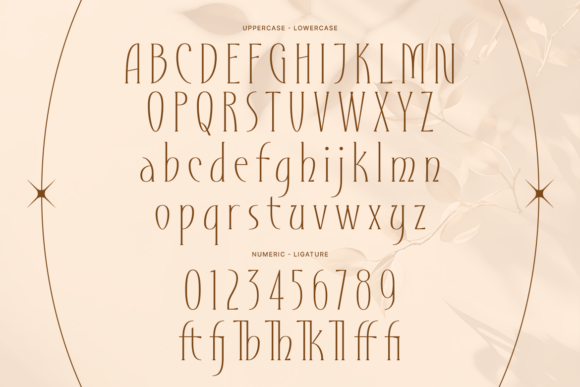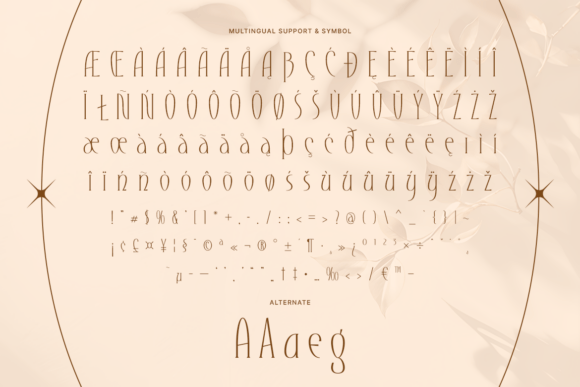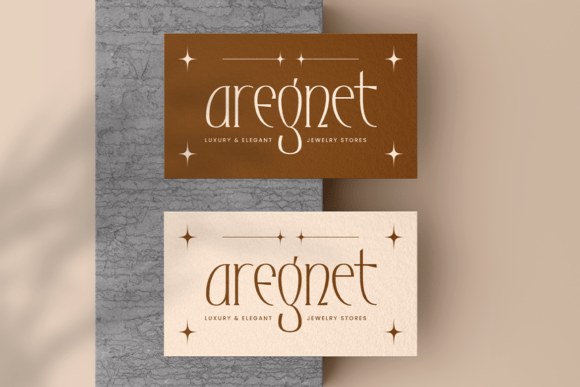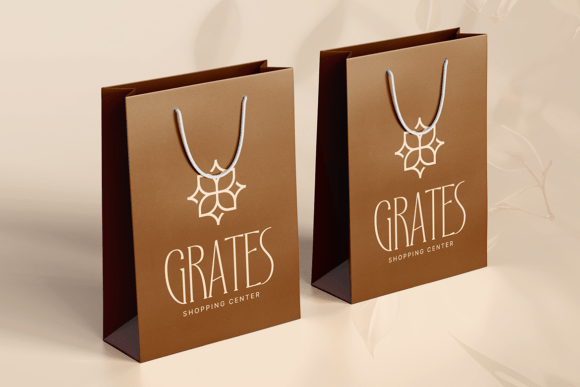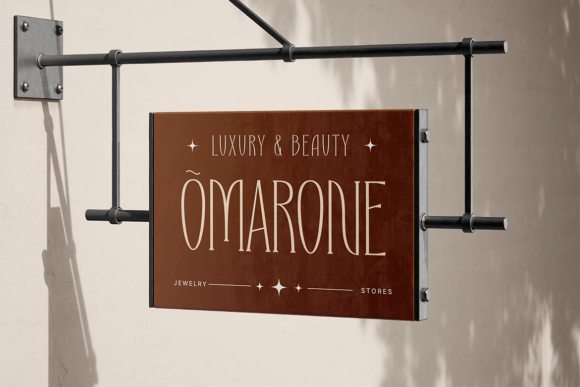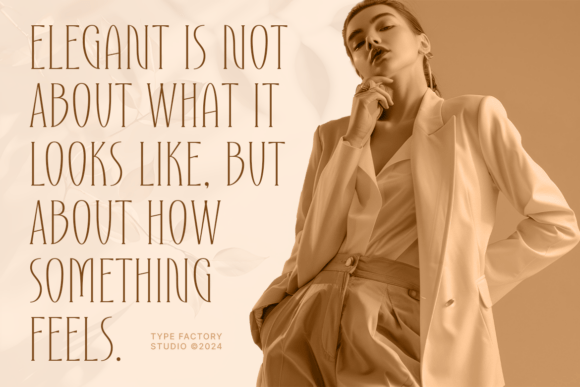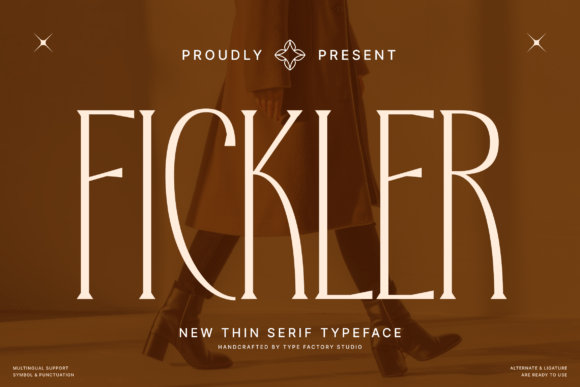
Fickler Font: Elevate Your Designs with a Refined Editorial Typeface
In the world of typography, a well-crafted font can make all the difference in elevating your design to new heights. For designers and crafters seeking a typeface that exudes refinement and sophistication, look no further than Fickler Font. This thin serif typeface boasts tall proportions and narrow letterforms, creating a distinguished editorial appearance that’s perfect for a variety of applications.
Key Characteristics of Fickler Font
Fickler Font is characterized by its striking vertical emphasis and compact width. These features allow the typeface to work effectively in large display sizes, making it an excellent choice for headlines, editorial titles, and branding compositions. The thin serif lines add a touch of elegance, while the tall proportions and narrow letterforms create a sense of refinement and poise.
Design Applications for Fickler Font
Fickler Font’s versatility makes it an excellent addition to any designer’s toolkit. Here are some ideal applications for this exceptional typeface:
- Headlines and Titles: Fickler Font’s tall proportions and narrow letterforms make it perfect for grabbing attention in headlines and editorial titles. Its refined appearance adds a touch of sophistication to any publication or website.
- Branding Compositions: The typeface’s elegant serif lines and compact width make it an excellent choice for branding compositions, such as logos, business cards, and letterheads.
- Editorial Design: Fickler Font’s refined appearance makes it well-suited for editorial design, including magazines, newspapers, and online publications.
- Advertising and Marketing: The typeface’s striking vertical emphasis and compact width make it an excellent choice for advertising and marketing materials, such as billboards, posters, and flyers.
Benefits of Using Fickler Font
By incorporating Fickler Font into your designs, you can enjoy a range of benefits, including:
- Enhanced Readability: Fickler Font’s clear and elegant letterforms ensure excellent readability, even at large display sizes.
- Refined Editorial Appearance: The typeface’s refined appearance adds a touch of sophistication to any design, making it perfect for editorial and branding applications.
- Versatility: Fickler Font’s versatility makes it suitable for a wide range of design applications, from headlines and titles to branding compositions and editorial design.
Tips for Using Fickler Font Effectively
To get the most out of Fickler Font, consider the following tips:
- Pair with Contrasting Fonts: Combine Fickler Font with contrasting fonts to create visual interest and hierarchy in your designs.
- Experiment with Line Spacing: Adjust line spacing to optimize readability and create a clear visual flow.
- Use in Large Display Sizes: Take advantage of Fickler Font’s striking vertical emphasis and compact width by using it in large display sizes.
Fickler Font is a refined editorial typeface that offers a unique combination of elegance, sophistication, and versatility. Its tall proportions, narrow letterforms, and thin serif lines make it perfect for a range of design applications, from headlines and titles to branding compositions and editorial design. By incorporating Fickler Font into your designs, you can elevate your work to new heights and create stunning visual compositions that leave a lasting impression.